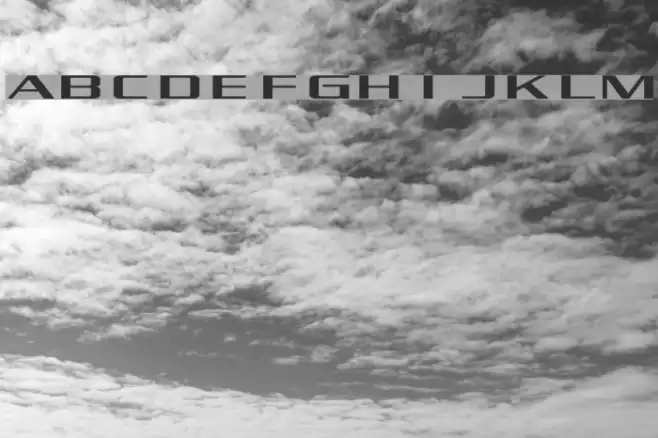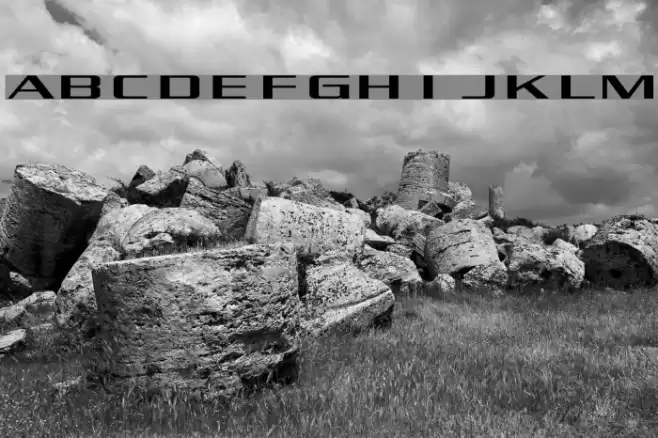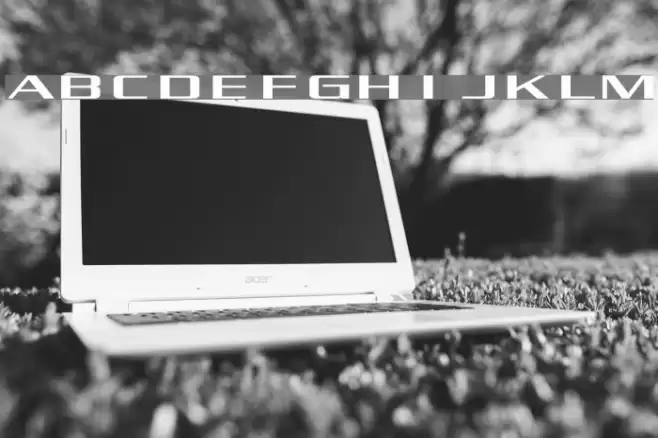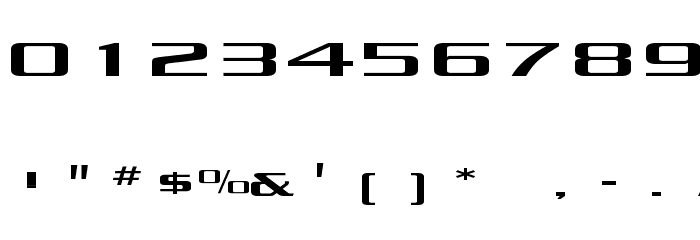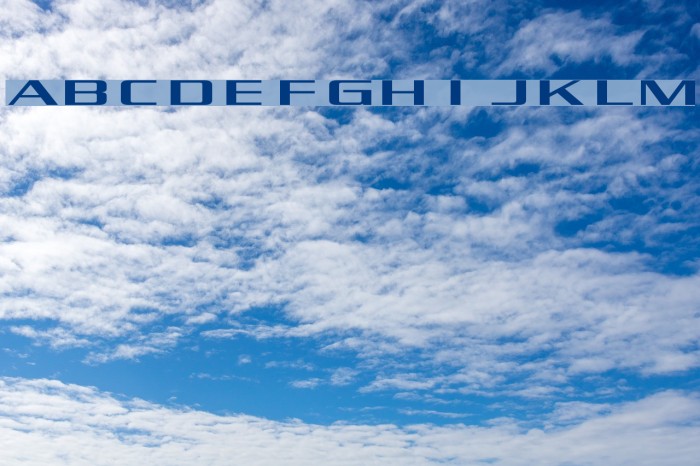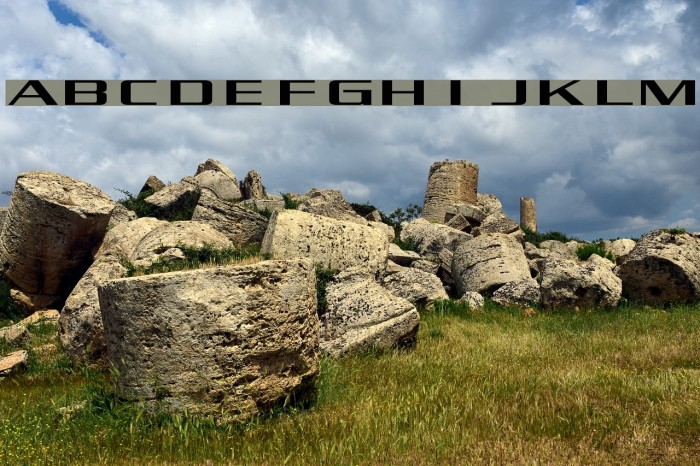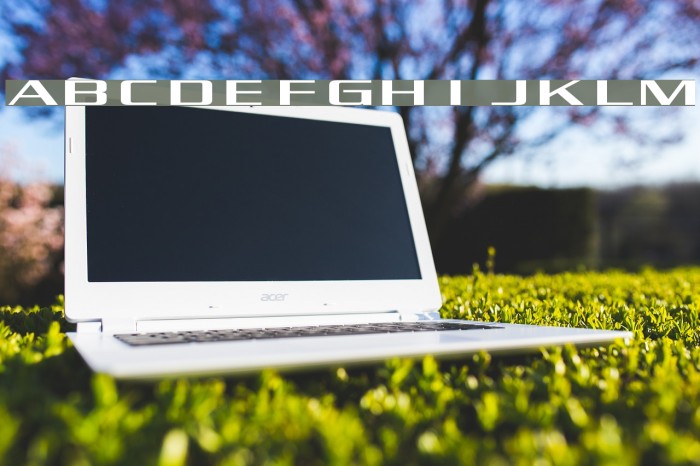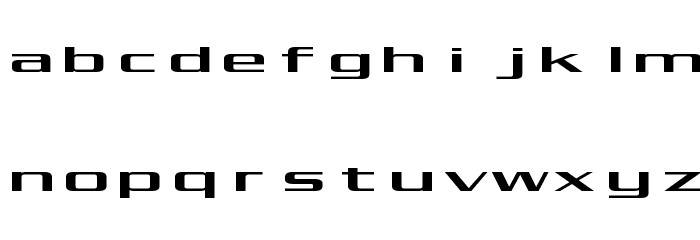
Kubra_Extended Description
This font features a modern, geometric design with a strong, bold presence. The characters are crafted with clean, straight lines and sharp angles, giving it a futuristic and technical appearance. The uppercase letters are uniform in height, while the lowercase letters maintain a consistent baseline, enhancing readability. The numerals are distinct and align well with the overall style, making them suitable for digital interfaces. Special characters are designed to complement the alphanumeric set, maintaining the font's cohesive look. The font's extended width adds a unique touch, making it stand out in headlines and titles.
A modern, geometric font with a bold, futuristic style and extended width from Formal fonts.
- Proposed Projects: Ideal for technology branding, digital interfaces, video game design, and futuristic-themed projects.
- Width: Expanded
- Use Case: Headlines, Logos, Digital Interfaces